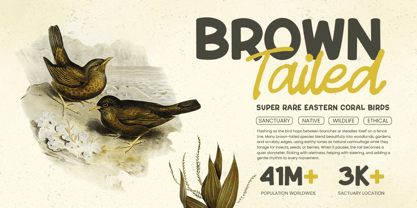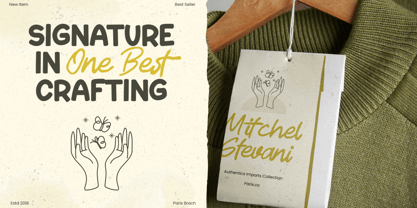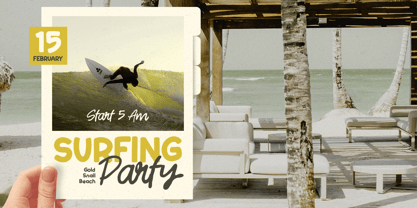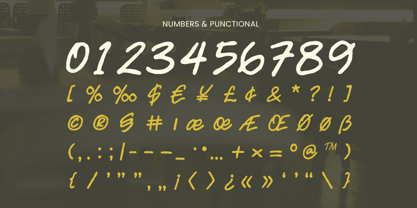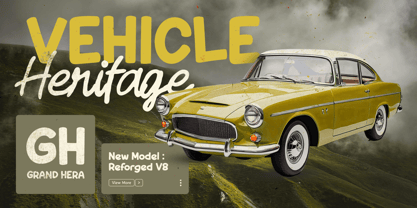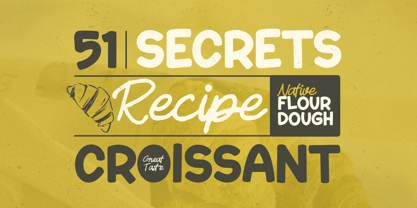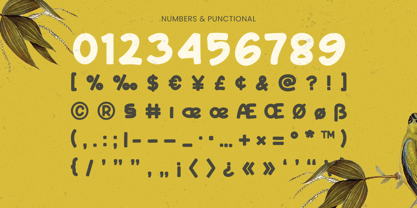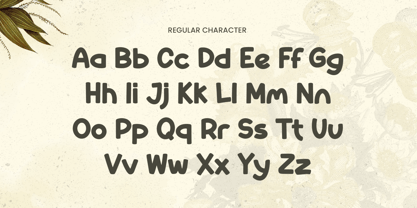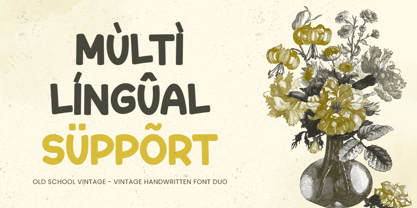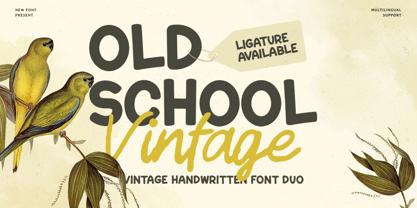
Old School
The Old School Font Family was designed by Zamroni Hamzah and published by Sensatype Studio. Old School contains 2 styles and family package options. More about this family
Old School Vintage is a vintage handwritten font duo designed to capture the charm of retro lettering with authentic handcrafted character. Combining two complementary handwritten styles, this duo delivers a nostalgic yet bold personality—perfect for projects that embrace classic design with expressive warmth.
Built for impactful branding and display use, Old School Vintage works beautifully across logos, product labels, packaging, posters, signage, café branding, event graphics, and social media visuals. The pairing allows you to create strong typographic contrast—one style for bold retro headlines and the other for natural handwritten accents that enhance authenticity and depth.
Whether you’re developing a heritage-inspired brand, crafting nostalgic promotional materials, or designing packaging with rustic personality, Old School Vintage provides a versatile duo system that makes every layout feel timeless, character-rich, and full of vintage soul.
Inspiration Behind Old School Vintage
Old School Vintage is inspired by classic signage, retro lettering, and traditional handwritten branding—where texture, personality, and expressive strokes define visual identity. The design focuses on capturing the spirit of old-school craftsmanship while keeping the typography usable and balanced for modern branding needs.
Old School Vintage Font Features:
• Vintage handwritten duo with complementary retro styles
• Perfect for logos, labels, packaging, and nostalgic branding
• Bold display presence with natural handwritten character
• Strong personality for headlines and statement typography
• Uppercase, lowercase, numerals, and punctuation included
• OpenType features for polished professional typesetting
Perfect For
• Retro logos, vintage wordmarks, and heritage brand identity
• Product packaging, labels, and rustic promotional materials
• Posters, signage, café branding, and event graphics
• Social media campaigns, digital banners, and classic-style layouts
• Editorial titles and nostalgic headline typography
Bring nostalgic charm to your branding with Old School Vintage—a handwritten font duo made for timeless retro impact. ✨